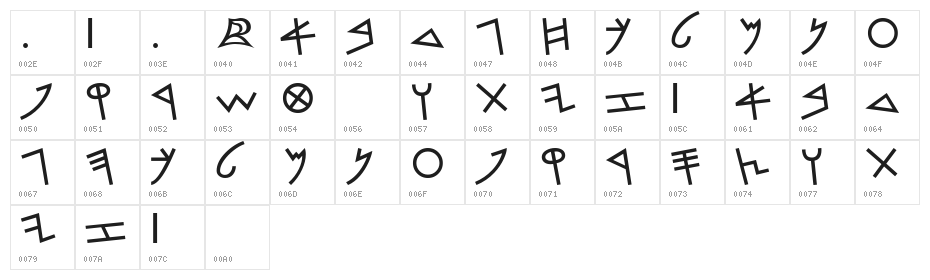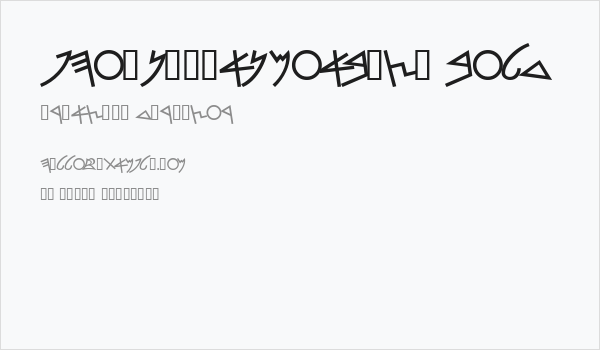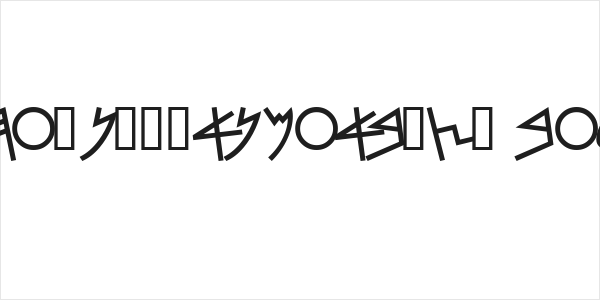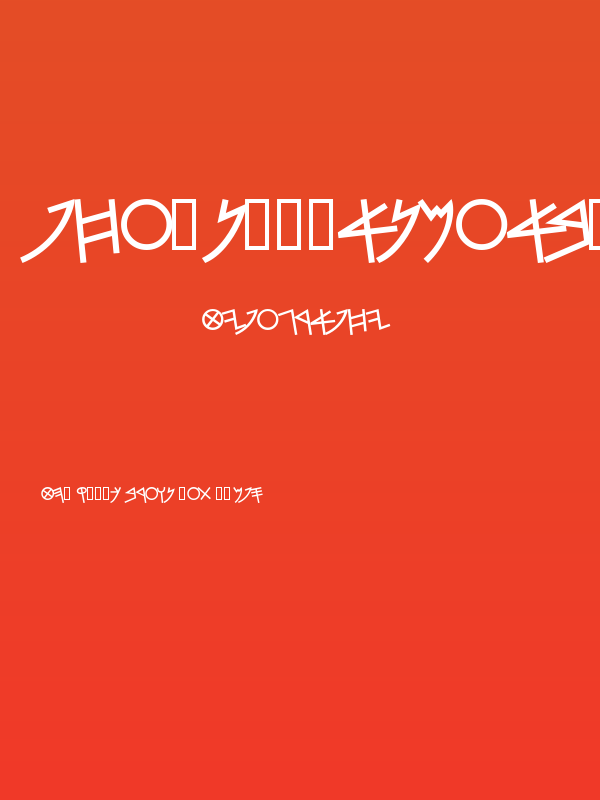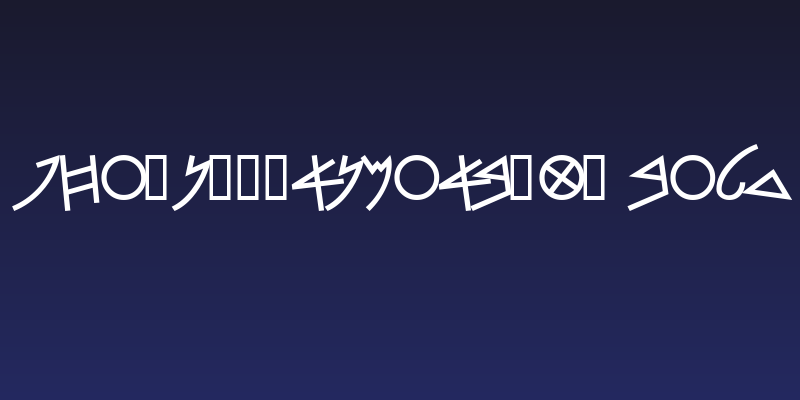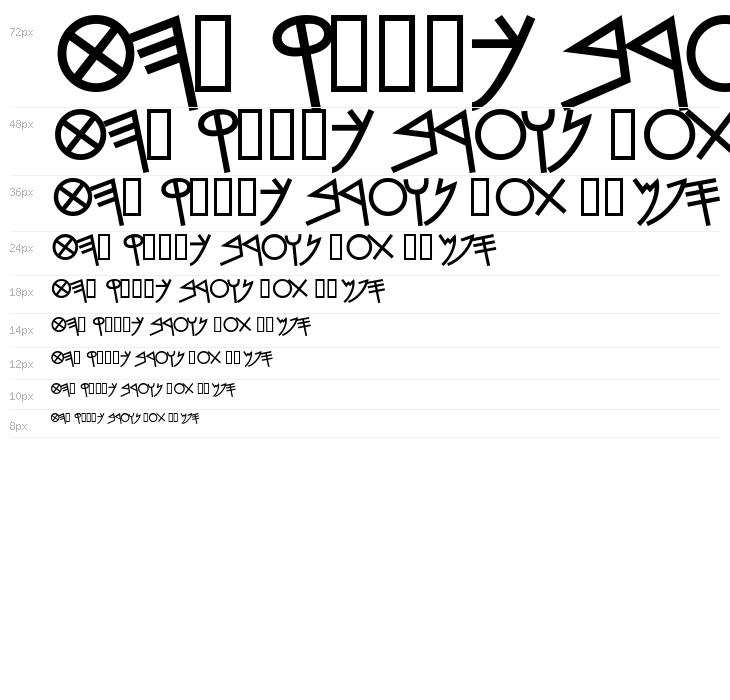
PhoenicianMoabite Bold Font
PhoenicianMoabite Bold Description
This font is a bold, decorative typeface inspired by ancient scripts, featuring angular and geometric shapes that evoke a sense of historical significance. The characters are crafted with thick strokes and sharp edges, creating a visually striking appearance. The design incorporates unique symbols and forms that resemble ancient inscriptions, making it ideal for projects that require a touch of antiquity and cultural depth. The font's boldness and distinct style make it stand out, while its intricate details add an element of sophistication.
| Use Case | Logos, Posters, Themed Events |
| Proposed Projects | Ideal for historical or cultural projects, themed posters, book covers, and logos that require an ancient or mystical aesthetic. |